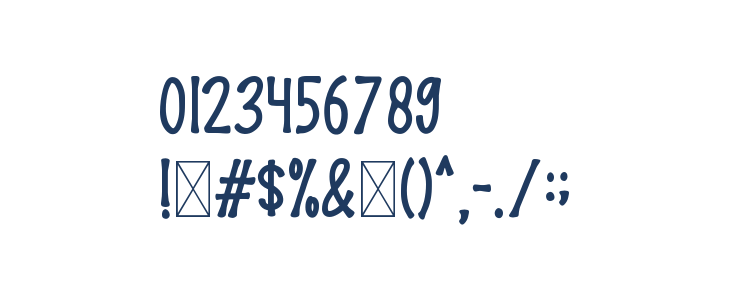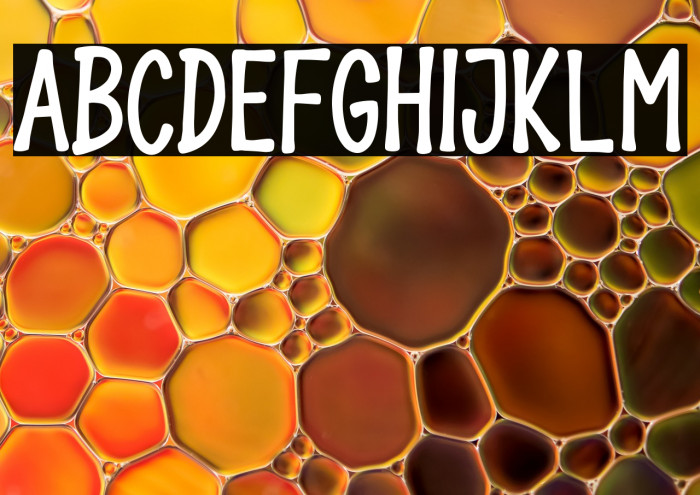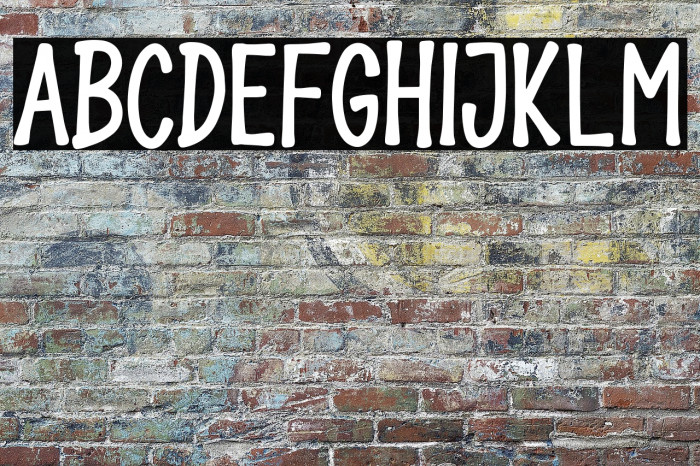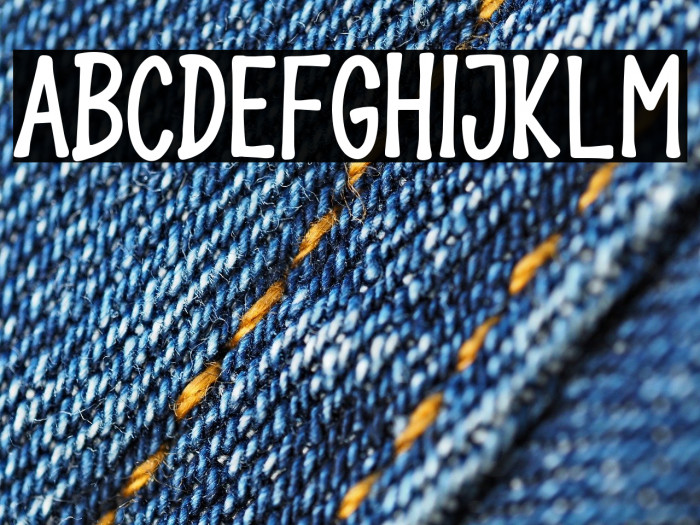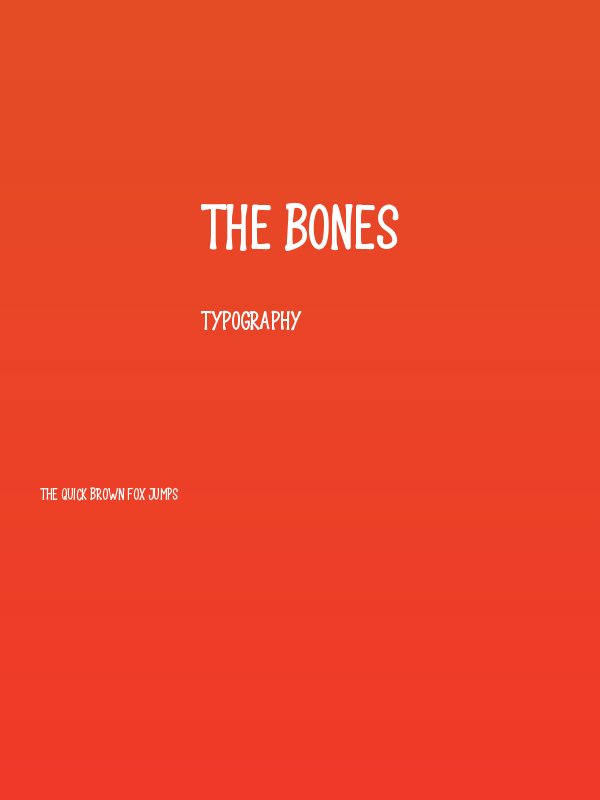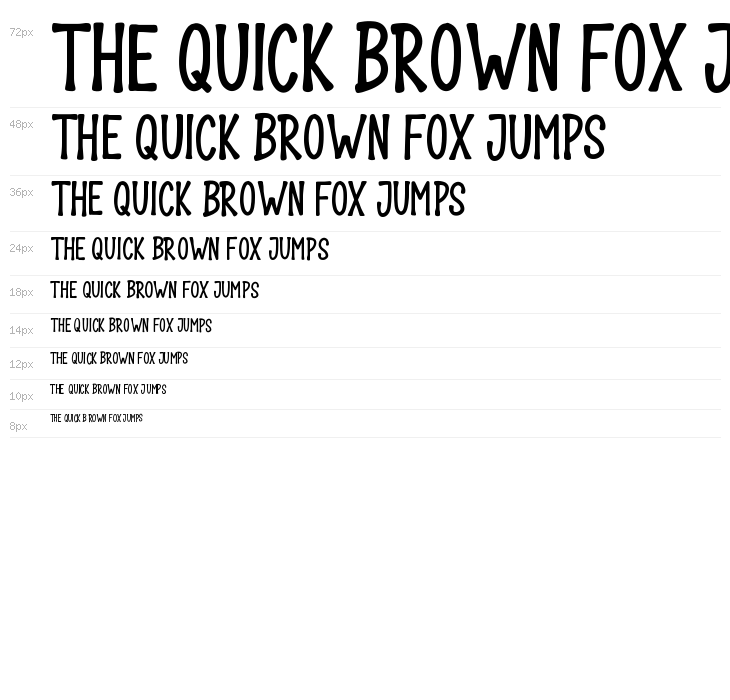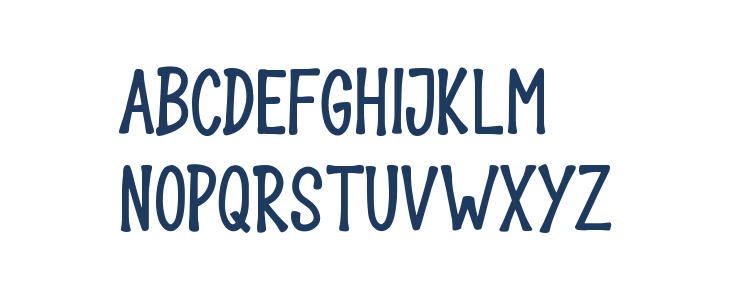
THE BONES Font
THE BONES Description
This font features a playful and quirky design with a hand-drawn aesthetic. The letters are tall and slightly irregular, giving them a whimsical and informal appearance. The strokes are consistent in thickness, providing a uniform look across all characters. The font includes both uppercase and lowercase letters, numbers, and a variety of special characters. Its unique style makes it stand out, making it ideal for creative and casual projects.
| Proposed Projects | Ideal for children's books, greeting cards, posters, and creative branding. |